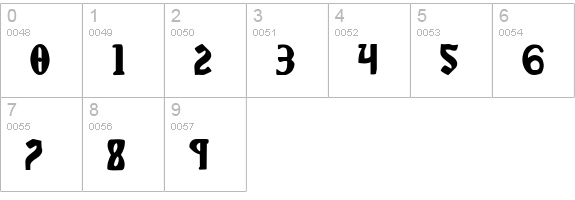
Sable Lion Font Details
Introducing the majestic Sable Lion font, a regal typeface that exudes power, elegance, and sophistication. With its bold and commanding letterforms, this font captures the essence of a lion's strength and grace, making it the perfect choice for projects that demand attention and authority. Sable Lion font is a versatile typeface that can be used for various design purposes, from branding and logo design to editorial layouts and signage. Its clean and well-defined lines create a sense of professionalism and modernity, while its unique curves and details add a touch of character and personality. What sets Sable Lion font apart is not only its striking aesthetics but also its accessibility. Yes, you read it right - this extraordinary font is absolutely free! You can easily download it at FontsMarket.com, where it is readily available for you to use in your creative endeavors. Whether you're a professional designer, a student, or an enthusiast looking to add a touch of sophistication to your projects, Sable Lion font is a valuable asset that won't cost you a penny. Its availability as a free download means that you can unleash your creativity without any limitations or barriers. Don't miss out on the opportunity to harness the power and elegance of the Sable Lion font. Download it now from FontsMarket.com and elevate your designs to new heights. With its captivating presence, this font will make a lasting impression and leave an indelible mark on your audience.